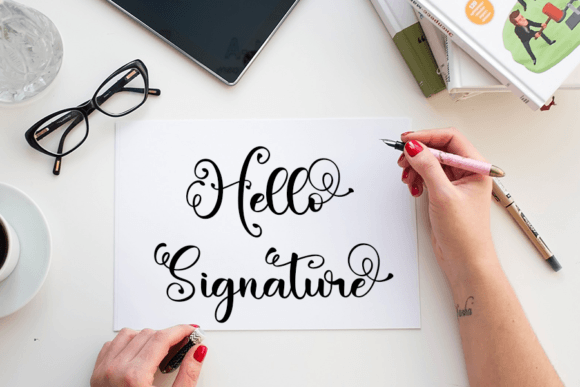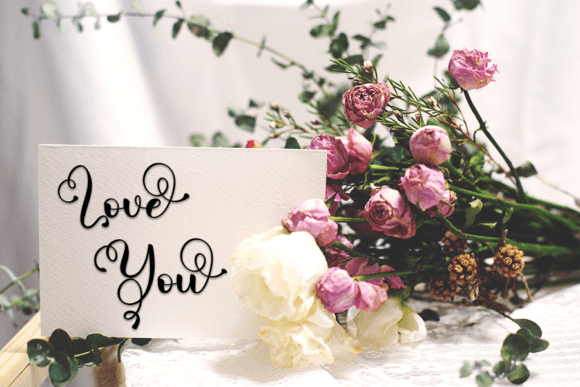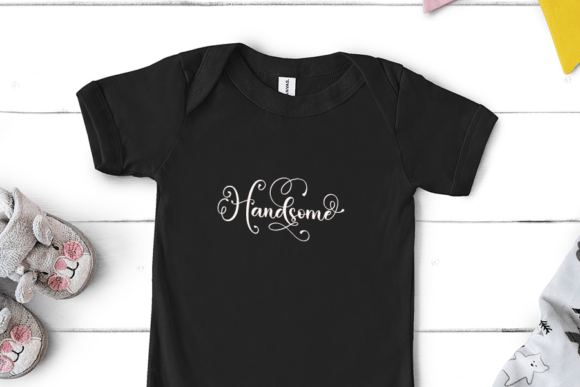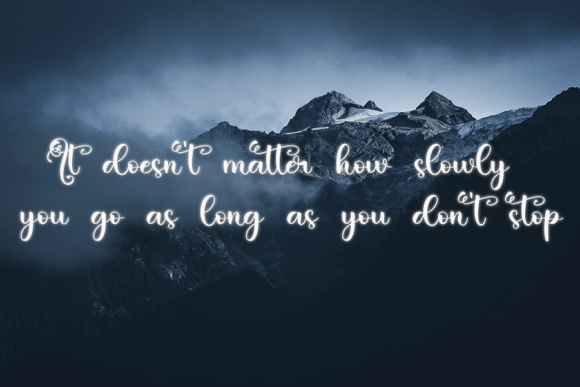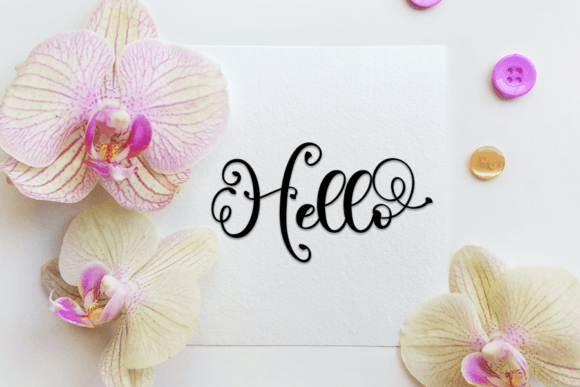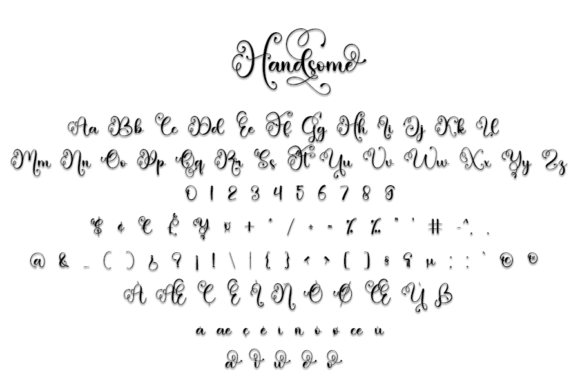
Introducing Handsome Font: Elevate Your Designs with a Touch of Modern Elegance
In the world of typography, a font can make or break a design. For designers and crafters looking to add a dash of sophistication and modern flair to their projects, the Handsome Font is an excellent choice. This cool handwritten script font boasts a balanced and varied style, inspired by the timeless beauty of classic calligraphy. With its spotless form and modern vibe, Handsome Font is poised to become your go-to for creating stunning visual content.
The Inspiration Behind Handsome Font
Handsome Font draws its inspiration from the art of classic calligraphy, where the elegance of handwritten scripts meets the precision of modern typography. The creator aimed to capture the essence of traditional calligraphy while infusing it with a contemporary twist. The result is a font that exudes sophistication, yet remains approachable and versatile.
Key Features of Handsome Font
- Balanced and Varied: The font strikes a perfect balance between not being too thin and not too thick, making it suitable for a wide range of design applications.
- Modern Vibe: With its clean lines and spotless form, Handsome Font brings a modern edge to traditional calligraphy.
- Handwritten Script: The font’s handwritten nature adds a personal touch to your designs, making them stand out in a sea of generic typography.
- Versatility: Whether you’re working on a branding project, crafting a unique logo, or simply looking to elevate your social media graphics, Handsome Font adapts seamlessly to various design needs.
Why Choose Handsome Font?
For designers and crafters seeking a font that combines elegance with a modern aesthetic, Handsome Font stands out for several reasons:
- Enhances Beauty: The font’s unique style and balanced form are designed to enhance the beauty of your projects, making them more visually appealing.
- Time-Saver: With its versatility and wide range of applications, Handsome Font can save you time in searching for the perfect typography for your projects.
- Easy to Read: Despite its elegant and cursive nature, Handsome Font remains highly legible, ensuring your message is conveyed clearly.
Using Handsome Font in Your Projects
Handsome Font is more than just a typeface; it’s a design statement. With its modern vibe, elegant look, and versatile nature, it’s an invaluable asset for designers and crafters aiming to create visually stunning projects. Whether you’re looking to add a touch of sophistication to your branding, create eye-catching social media graphics, or simply explore new typography options, Handsome Font is an excellent choice. Embrace the beauty of handwritten script with a modern twist and elevate your designs to new heights.